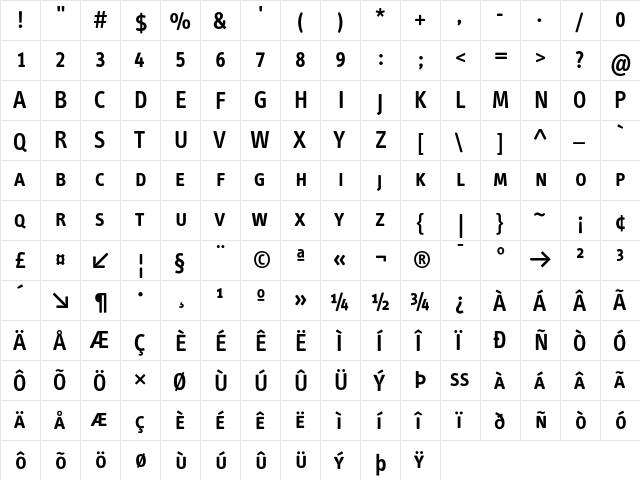
InfoText SemiBoldCaps
Design Context for InfoText Typeface
InfoText takes a measured approach to typography — its balanced proportions and neutral character make it a reliable workhorse for both digital and print work. Its bold stroke weight gives it real presence on the page.